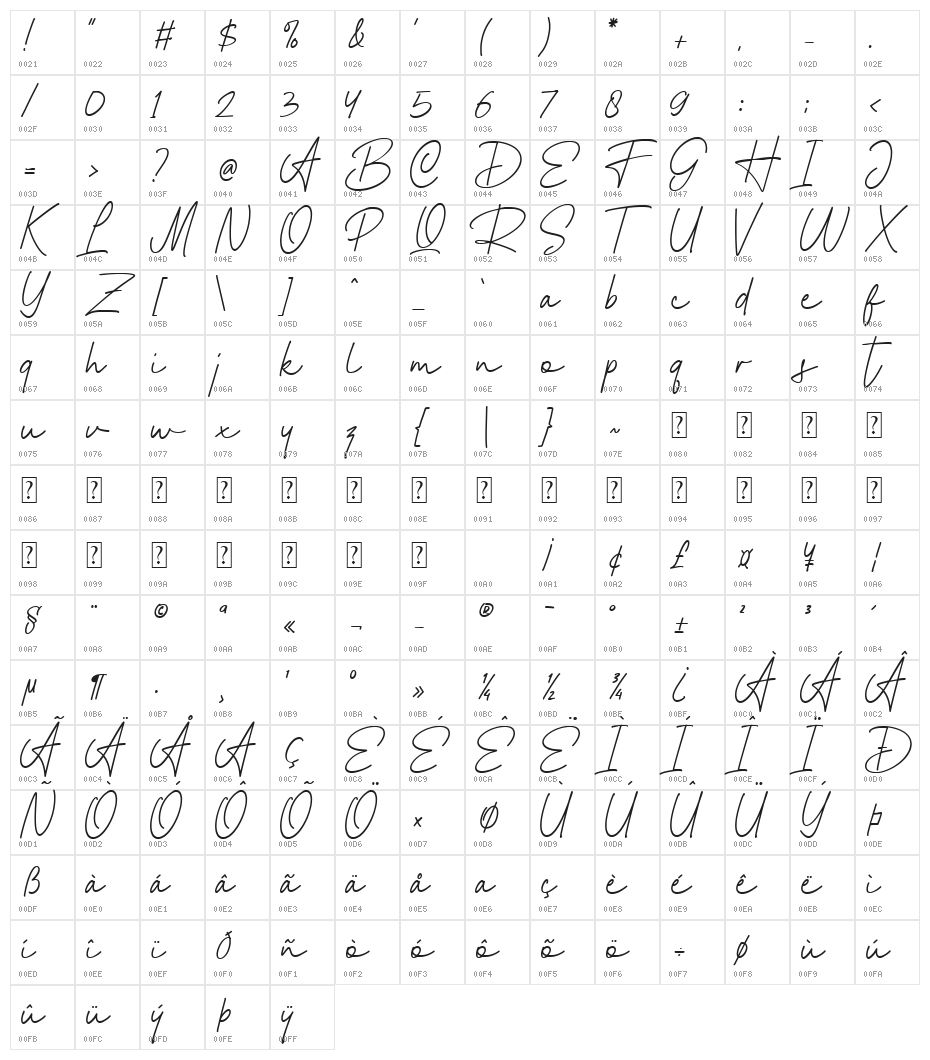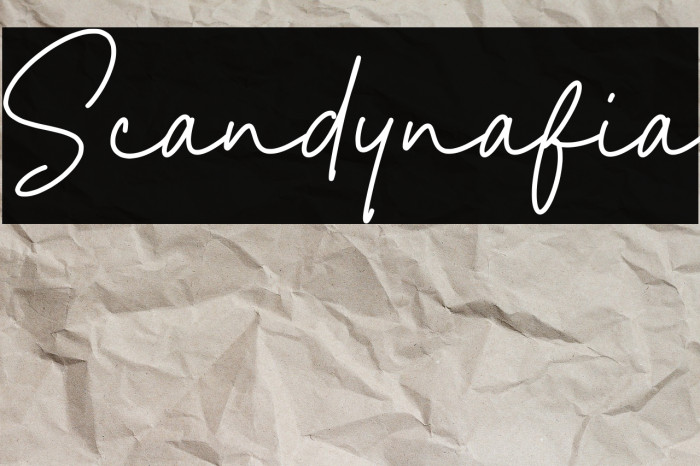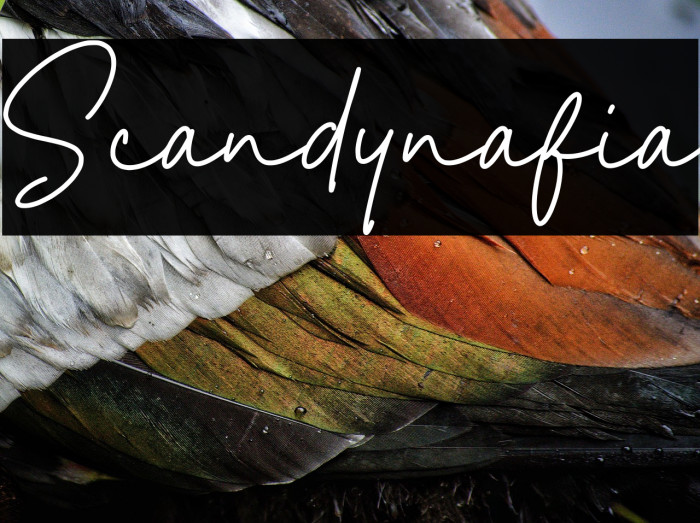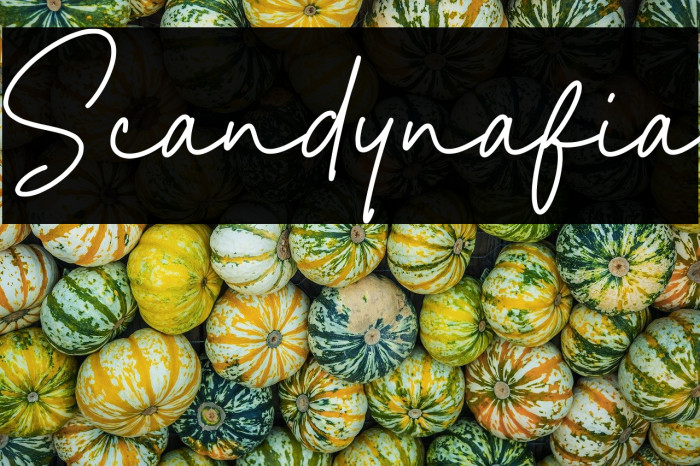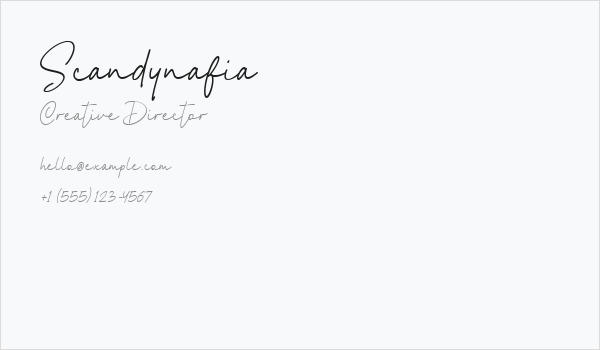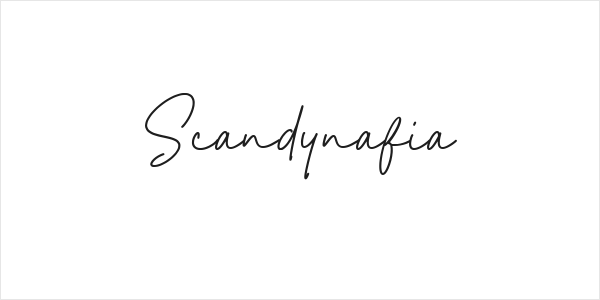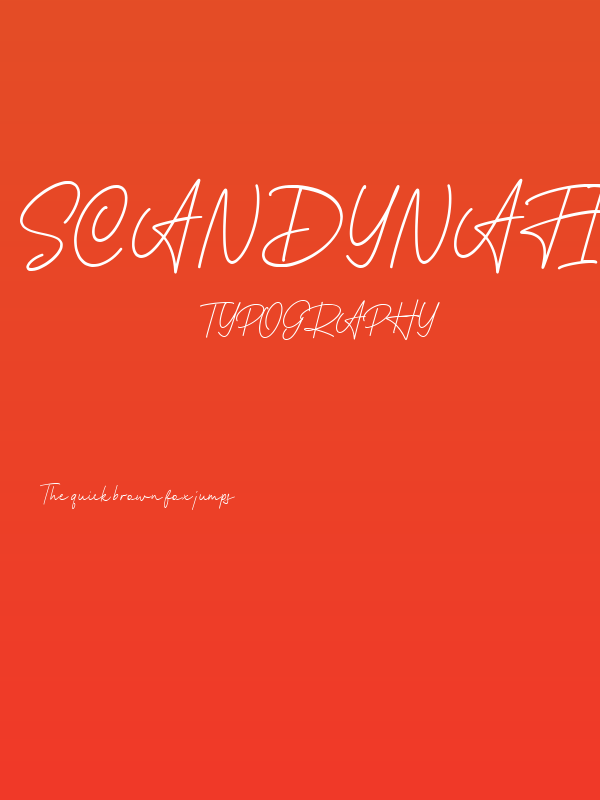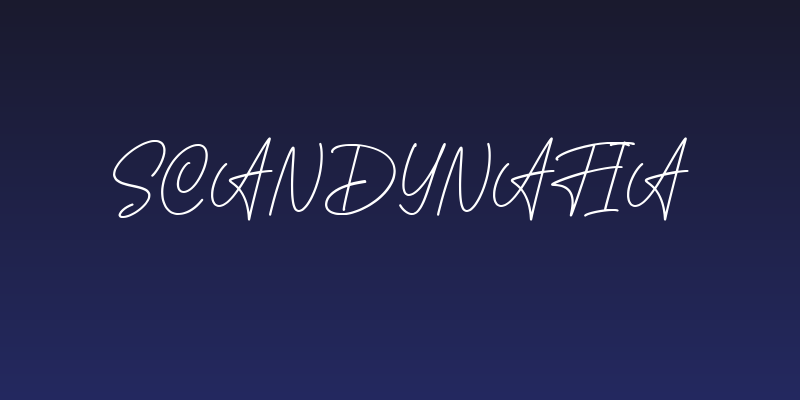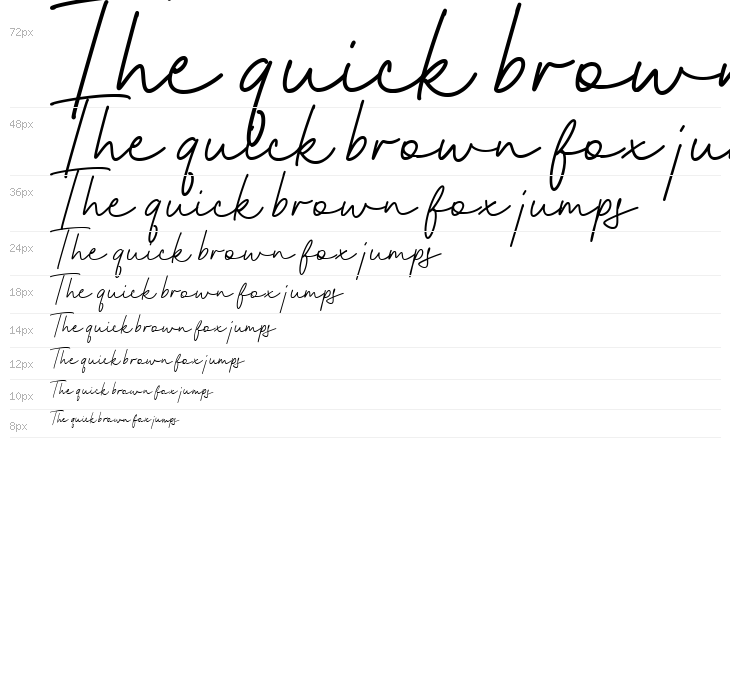
Scandynafia Font
Scandynafia Description
This font exudes a casual and flowing handwritten style, characterized by its smooth, cursive strokes and elegant loops. The uppercase letters are slightly more structured, maintaining a consistent height, while the lowercase letters exhibit a more freeform, natural appearance. The numerals are clear and legible, aligning well with the overall aesthetic. Special characters are seamlessly integrated, maintaining the fluidity of the script. The font's design is both approachable and stylish, making it suitable for a variety of creative applications.
Proposed ProjectsIdeal for wedding invitations, greeting cards, personal branding, and social media graphics.